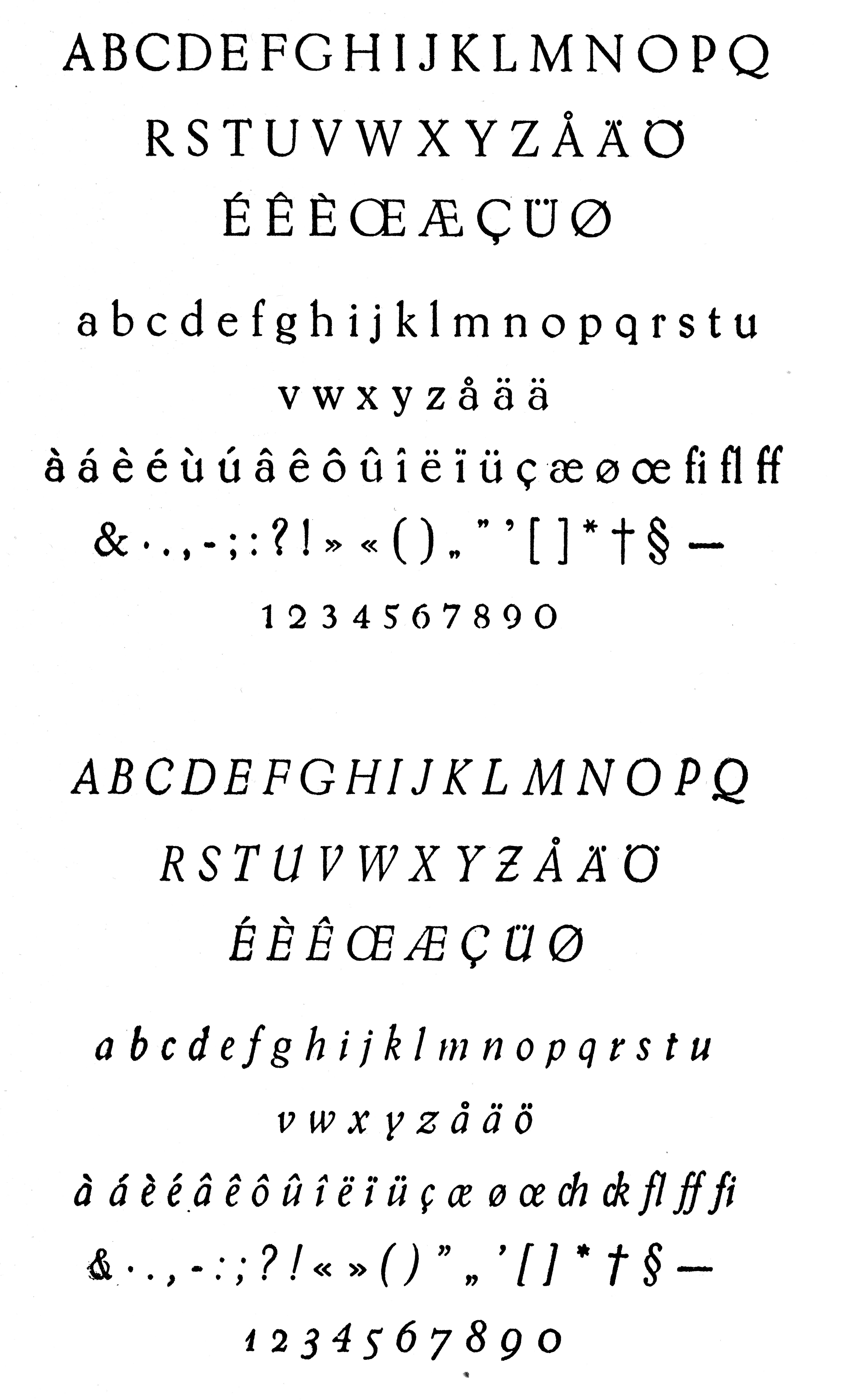
Awasome Swedish Fonts 2022
Taking on one challenge of a kind, which is to design a typeface that reflects the heart and soul of a country, sweden sans was created as a. Web 10000 search results for swedish fonts. Web they can be used as dividers and backgrounds on websites or pages with a great variety of content.
Web Swedish Has A Large Vowel Inventory, With Nine Vowels Distinguished In Quality And To Some Degree Quantity, Making 18 Vowel Phonemes In Most Dialects.
Taking On One Challenge Of A Kind, Which Is To Design A Typeface That Reflects The Heart And Soul Of A Country, Sweden Sans Was Created As A.
Web Swedish Script Font.
Web the font was designed by swedish typographer bo berndal. Swedish font text, swedish fontina cheese, swedish fonts, swedish font images, swedish font style, swedish font, free. Web swedish font download swedish is the perfect font for all your fun designs.